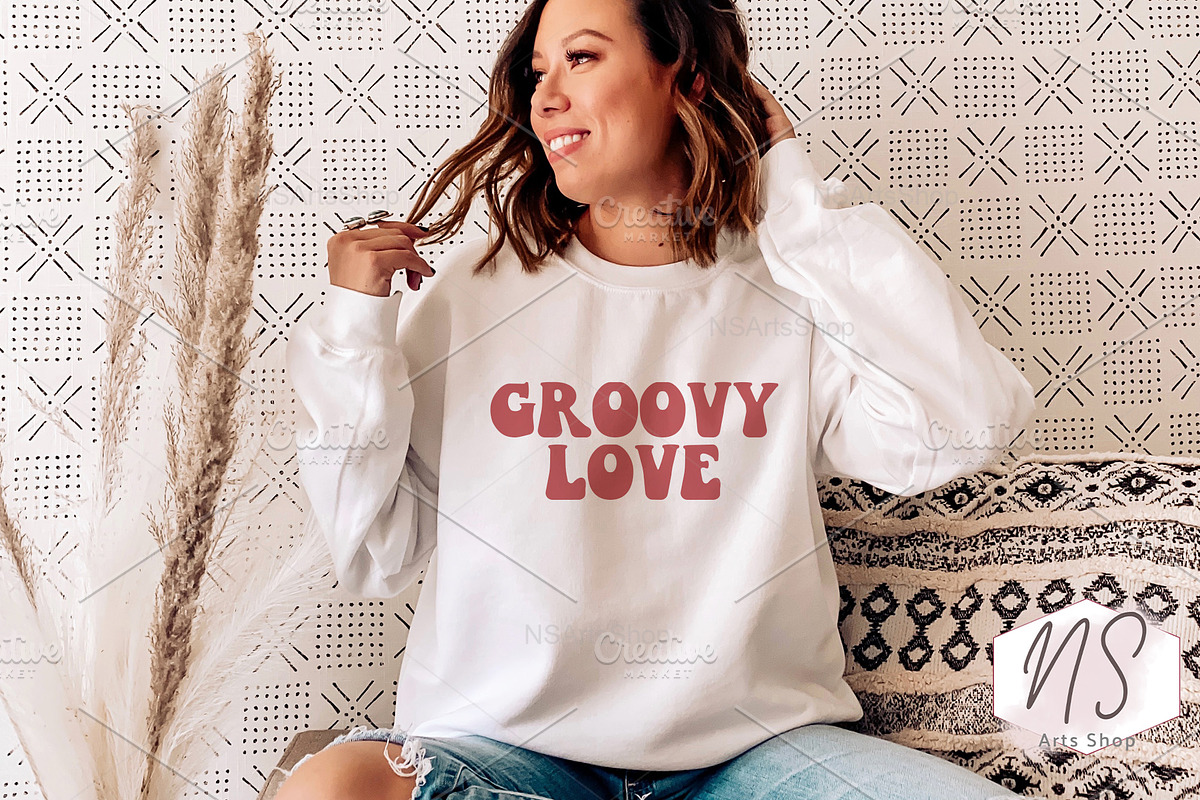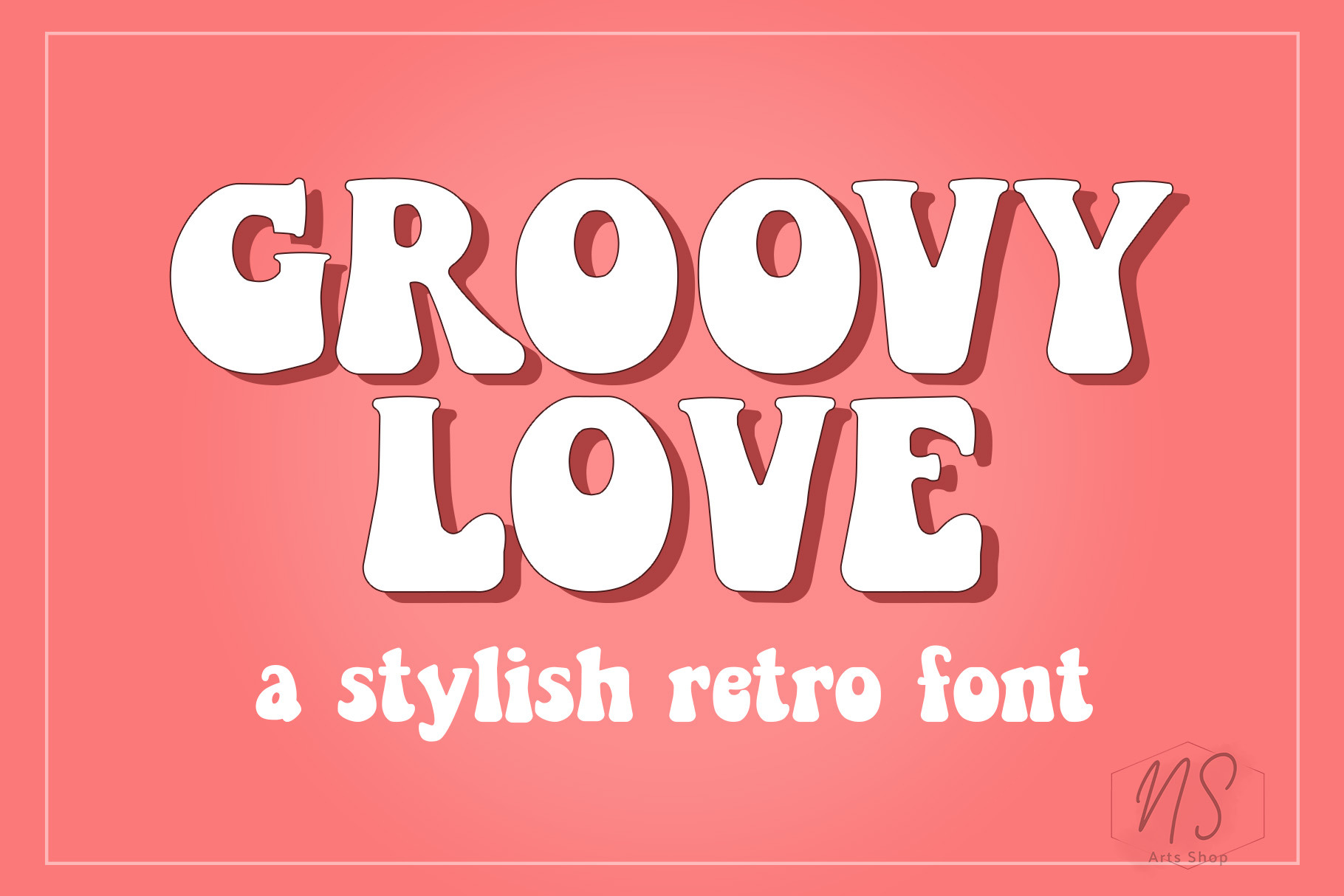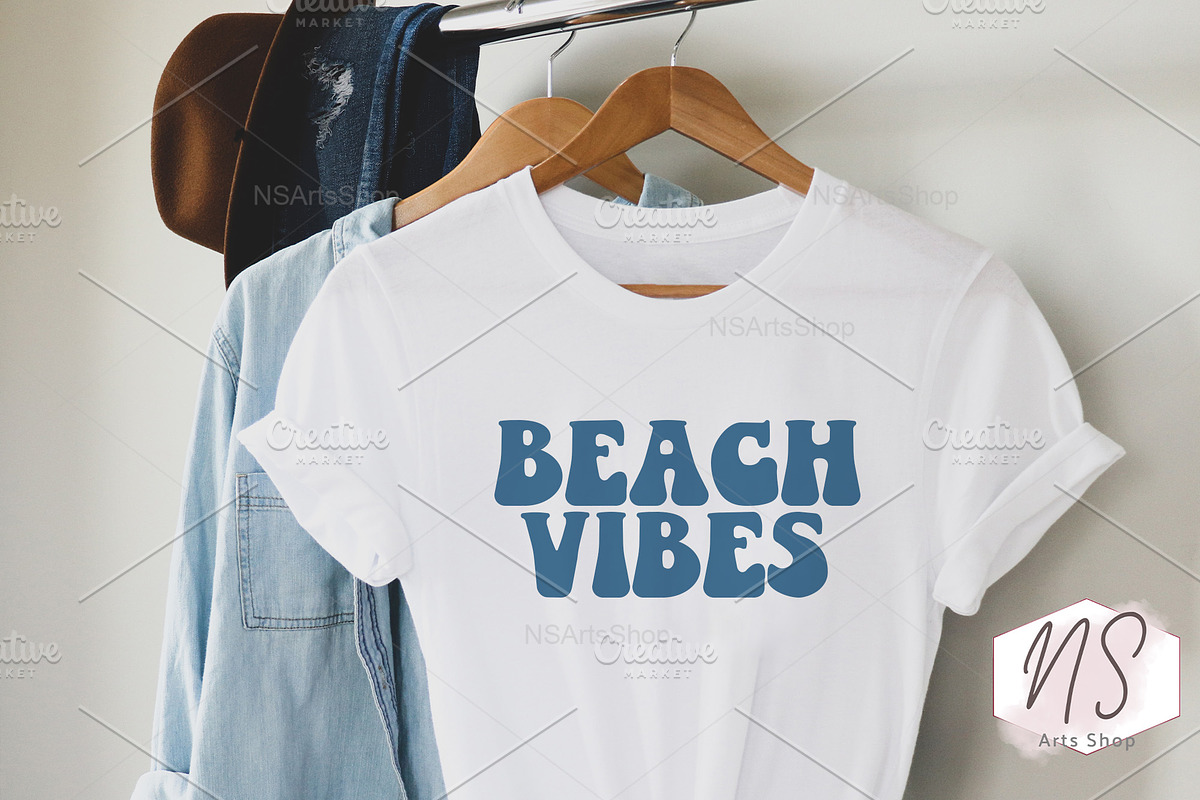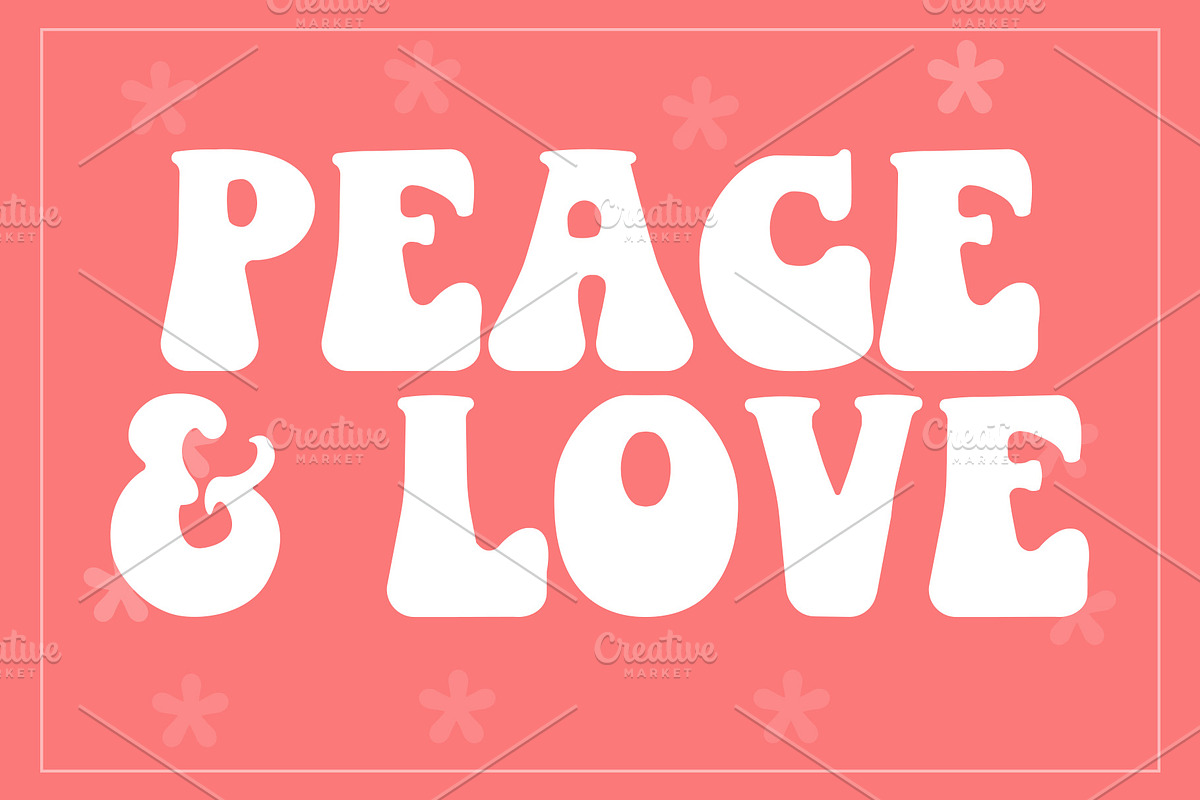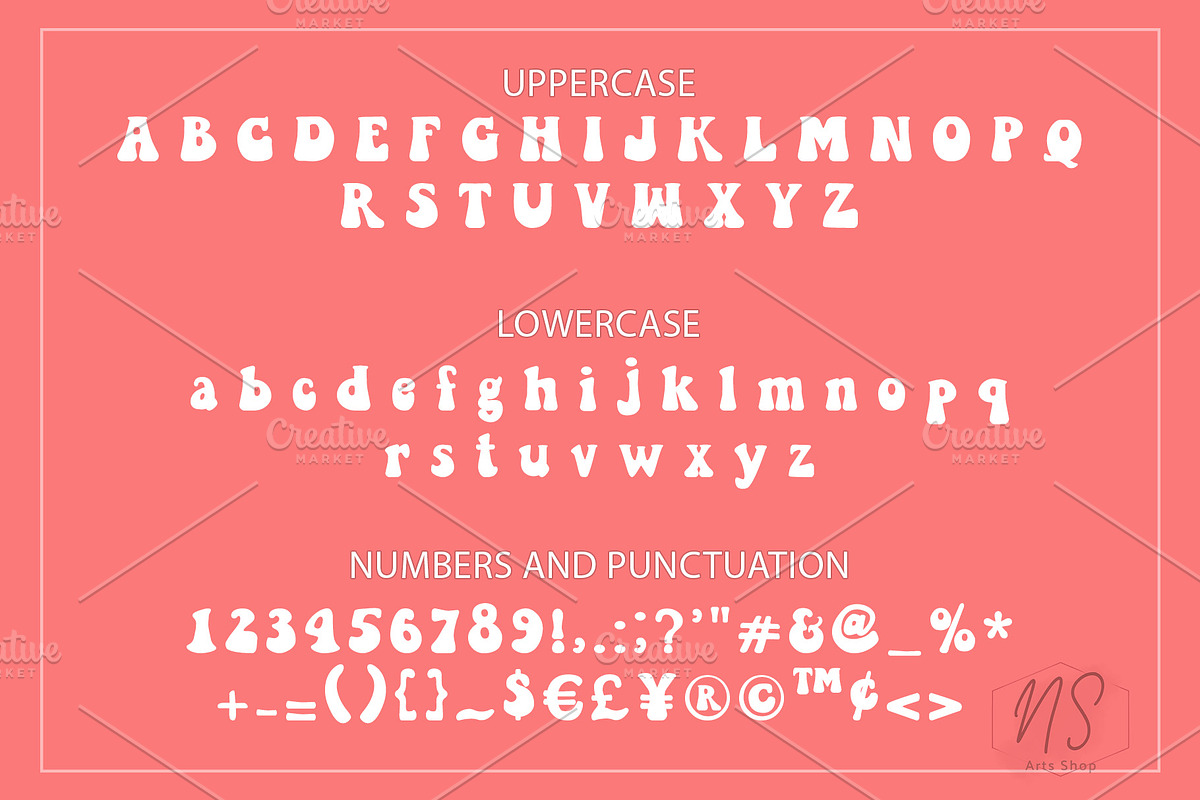
Groovy Love! Use this display serif font to add that special retro touch to any design idea you can think of! The font contains a lowercase, uppercase, and symbol. This font is suitable for social media, fashion, branding, catalog, and other design that you want.